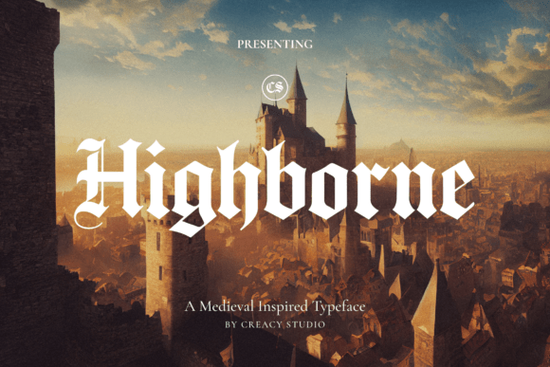
When you're looking for a typeface that can bring a touch of ancient elegance and gothic charm to your designs, Highborne Font is an excellent choice. This blackletter-style font is perfect for anyone who wants to add a sense of history and mystique to their creative projects.
What Makes Highborne Font Stand Out?
Highborne is a meticulously crafted typeface that draws inspiration from the grandeur of medieval manuscripts and heraldic insignia. Its striking ornate contours, dramatic contrast, and authentic gothic features make it a standout choice for a variety of design applications. Whether you're working on a music album cover, a dark fantasy poster, or a gothic brand identity, Highborne adds an indelible aura of enigma and authority to your work.
Key Features of Highborne Font
- Blackletter Style: Highborne embodies the classic blackletter style, which is known for its bold, dramatic appearance and historical significance.
- Comprehensive Character Set: The font includes a complete set of uppercase and lowercase letters, numerals, punctuation, and multilingual support, making it versatile for a wide range of projects.
- Stylistic Alternates and Touches: Highborne offers a variety of stylistic alternates and touches, allowing you to customize and add extra flair to your designs.
Where Can You Use Highborne Font?
Highborne is incredibly versatile and can be used in a multitude of creative projects. Here are some of the most popular applications:
- Music and Album Covers: Perfect for genres like metal, hip-hop, and gothic, Highborne adds a powerful and mysterious vibe to album art.
- Dark Fantasy and Medieval Themes: Ideal for posters, flyers, and branding for events with a dark, mystical, or medieval theme.
- Book Covers and Titles: Enhance the look of book covers, titles, and quotations with Highborne's authoritative and enchanting style.
- Apparel and Merchandise: Use Highborne to create distinctive graphics for t-shirts, hoodies, and other merchandise, adding a unique and eye-catching element.
- Logo and Brand Identity: Develop robust and innovative brand identities with Highborne, infusing a sense of timeless might and gothic sophistication.
How Does Highborne Compare to Other Blackletter Fonts?
While there are many blackletter fonts available, Highborne stands out with its rich, detailed design and adaptability. If you're considering other options, here are a few to compare:
- Stackwin Font offers a more modern take on the blackletter style, with cleaner lines and a slightly less ornate appearance.
- Rumbleside Font has a rougher, more rugged feel, making it ideal for projects that need a bit more edge and grit.
- Underdove Font is a lighter, more elegant option, suitable for designs that require a softer, more refined touch.
Why Choose Highborne for Your Next Project?
Highborne is not just another blackletter font; it's a carefully crafted typeface that brings a sense of history and majesty to your designs. Its versatility and rich features make it a valuable addition to any designer's toolkit. Whether you're a seasoned professional or a creative hobbyist, Highborne can help you achieve a unique and impactful look for your projects.
Practical Tips for Using Highborne Font
- Experiment with Stylistic Alternates: Don't be afraid to play around with the different stylistic alternatives and touches to find the perfect fit for your design.
- Combine with Complementary Fonts: For a balanced look, pair Highborne with a simpler, more readable font for body text or secondary elements.
- Use for Impactful Headings: Highborne works exceptionally well for headings and titles, where its dramatic presence can truly shine.
- Test on Different Backgrounds: Try Highborne on various backgrounds to see how it looks and feels, and adjust as needed to ensure readability and impact.